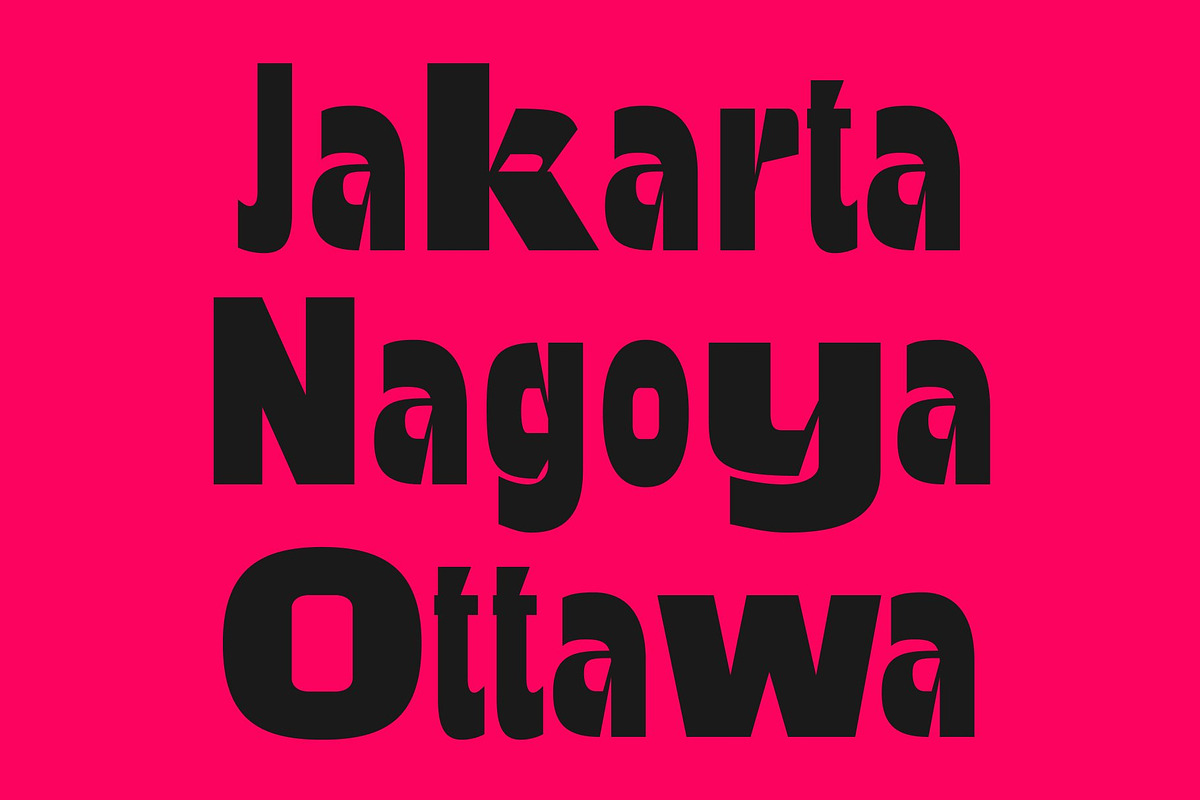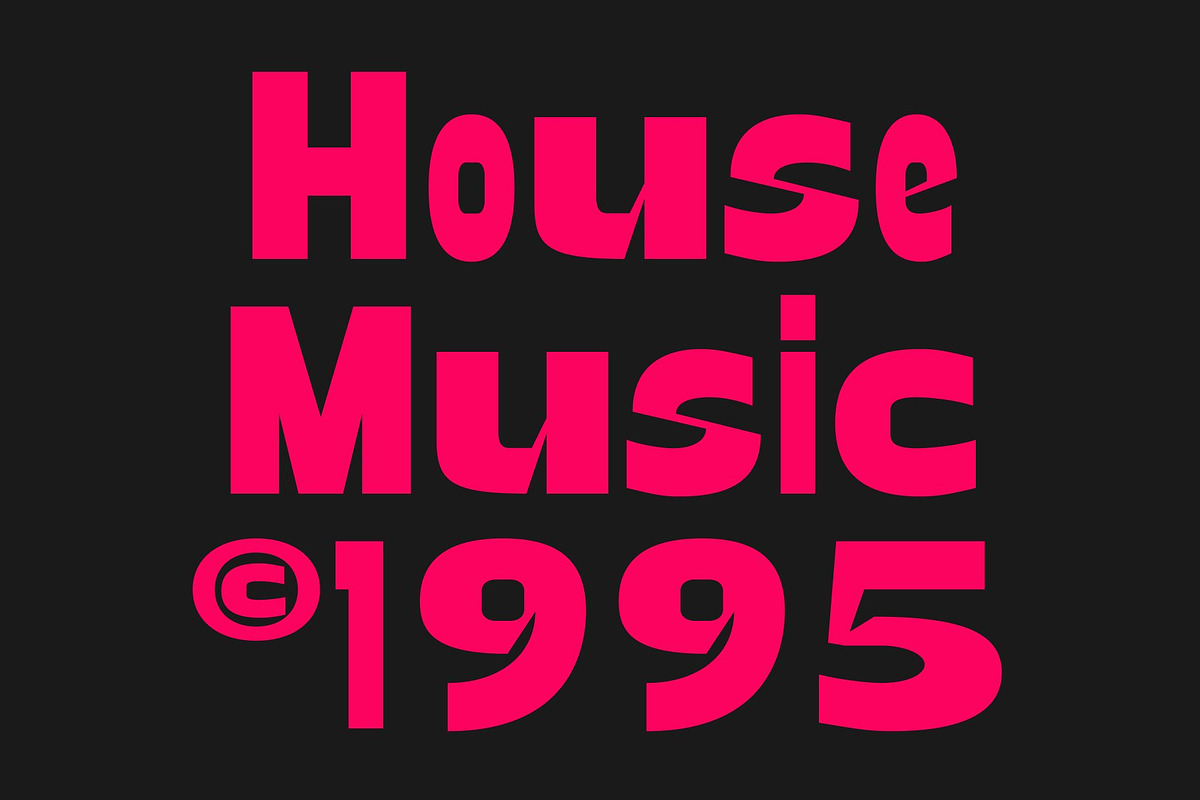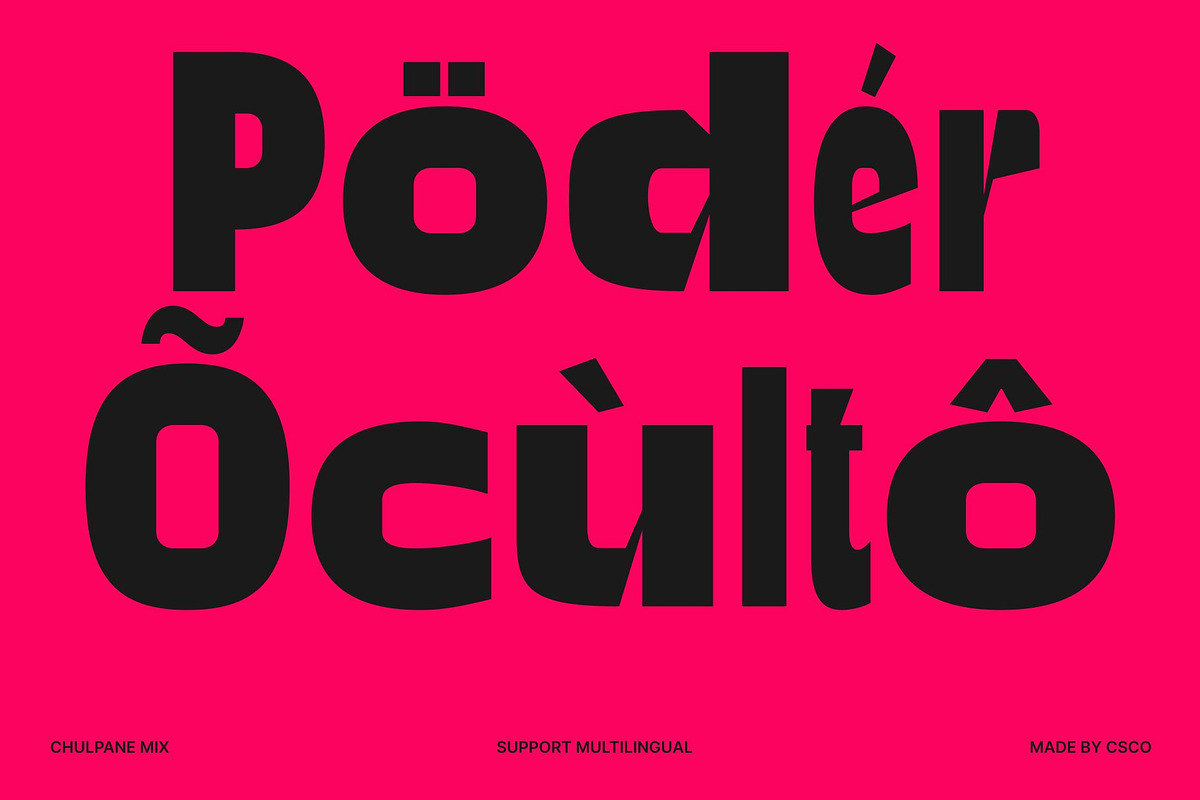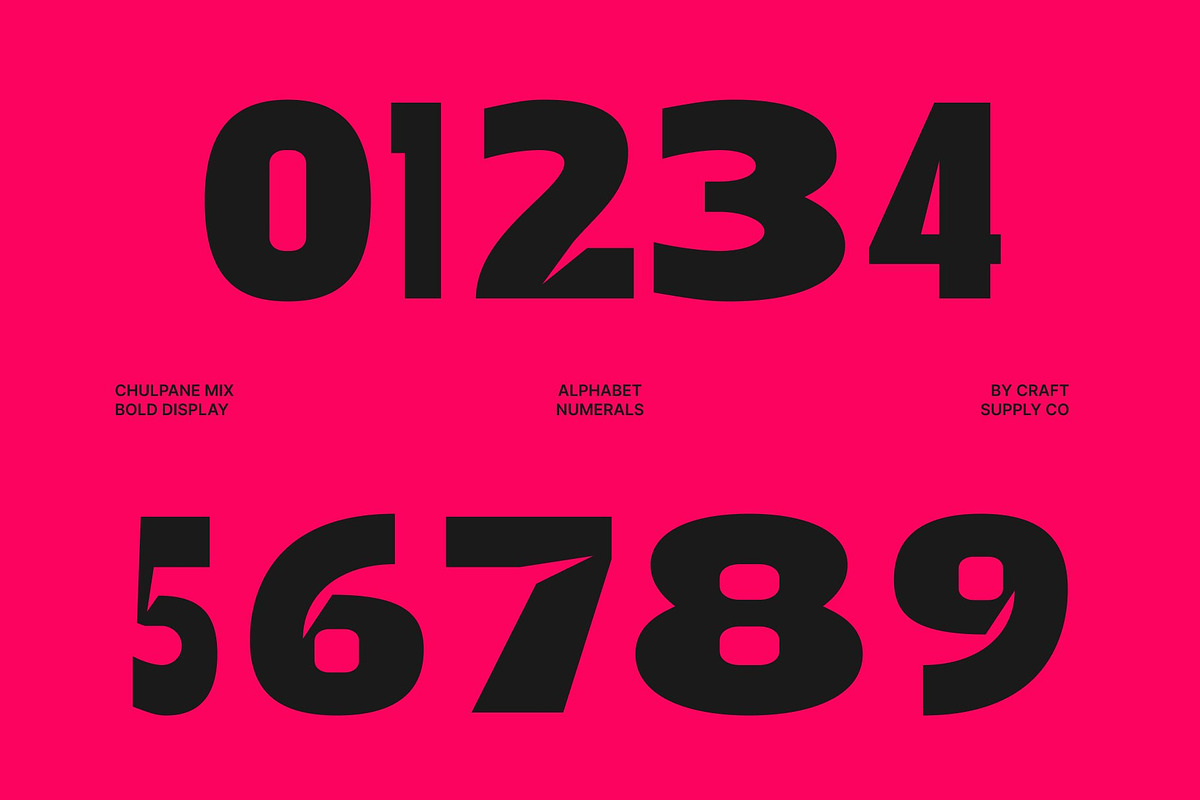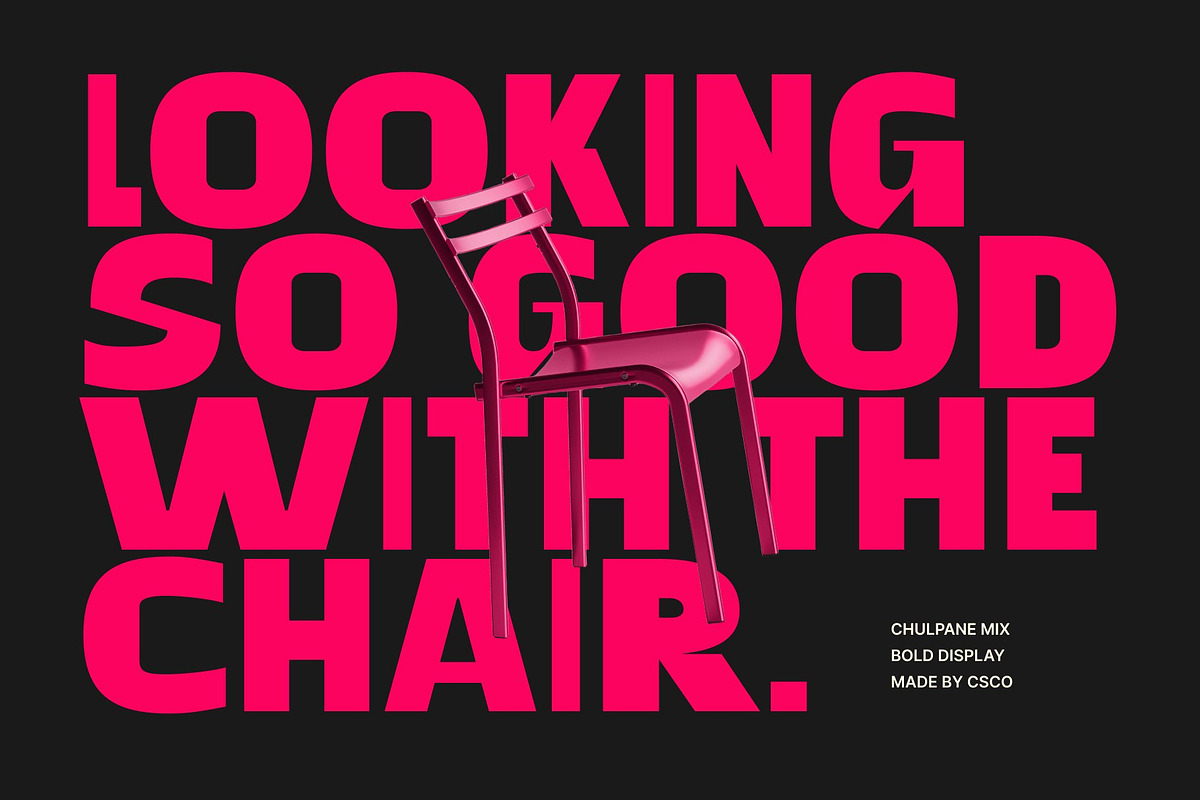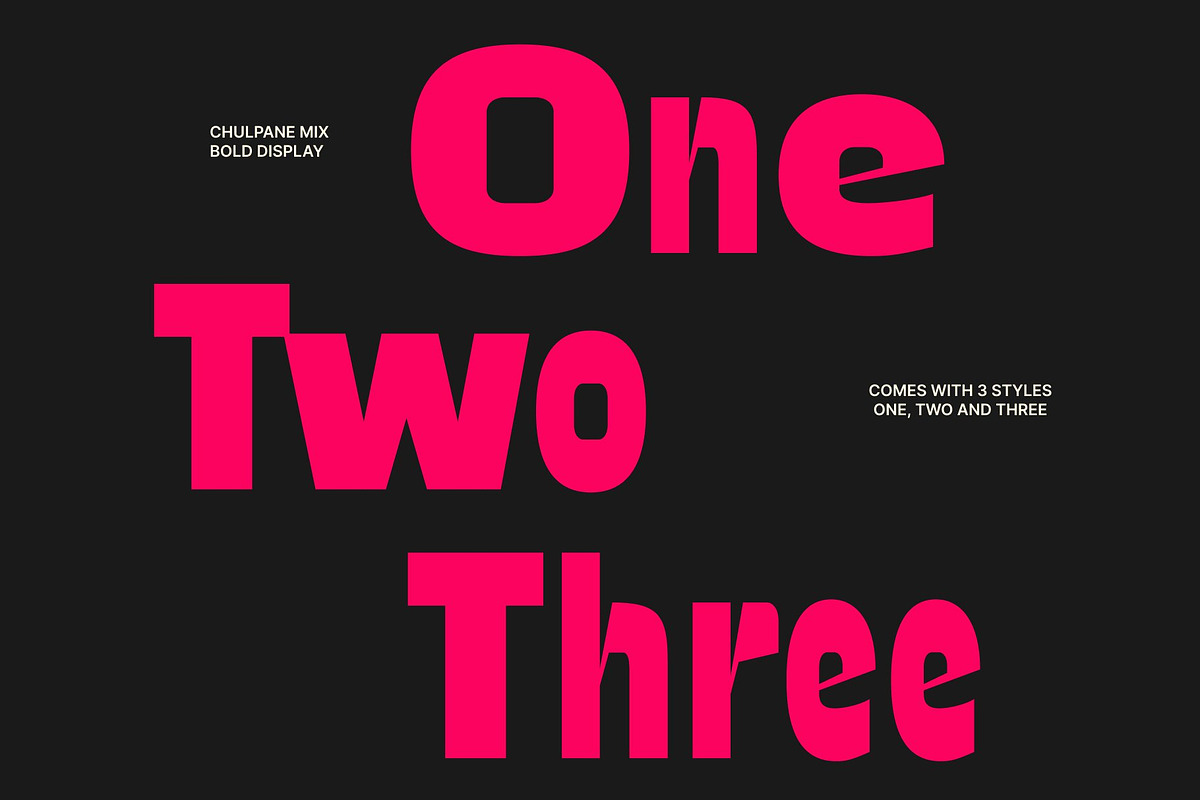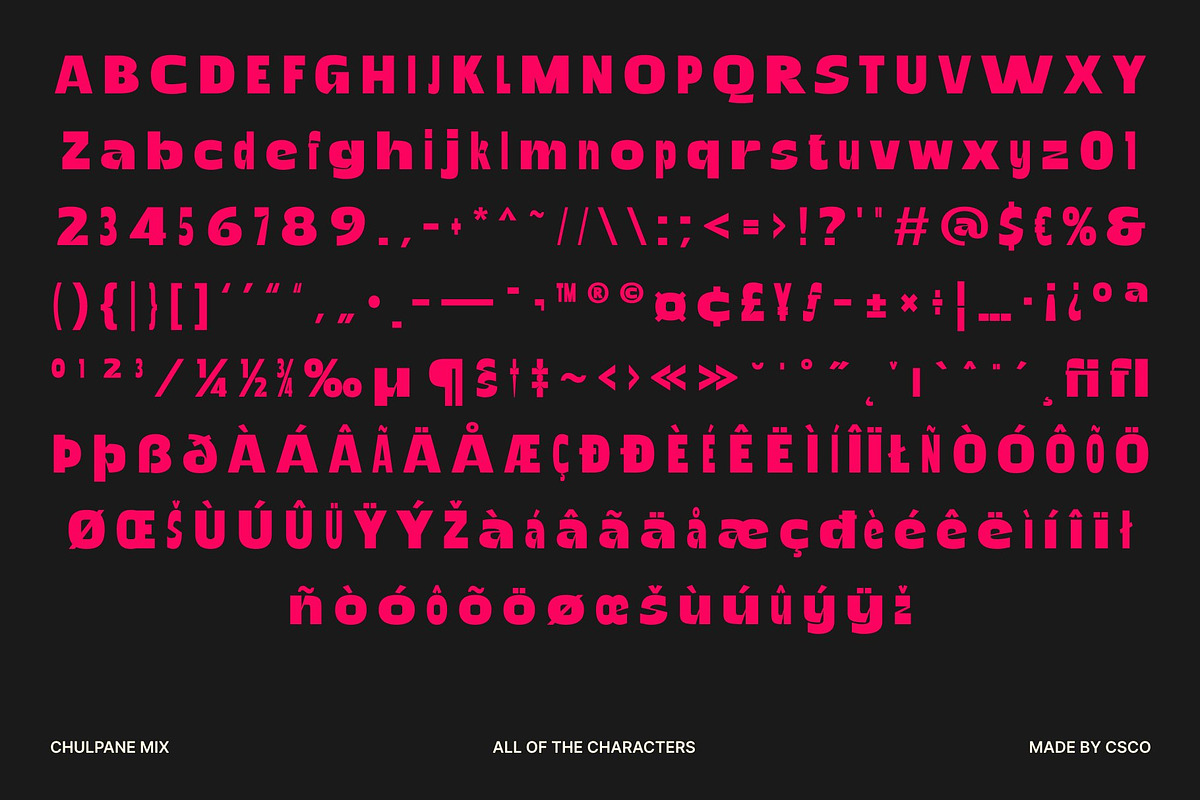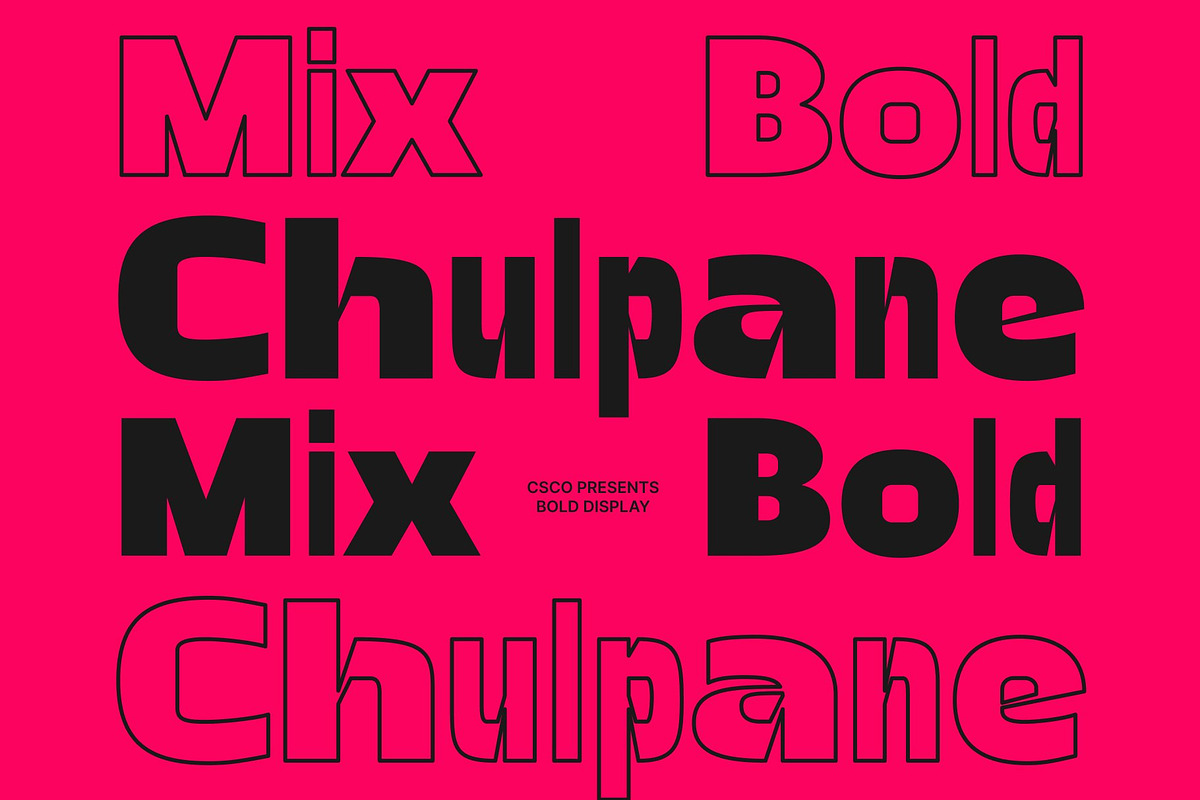
Chulpane Mix
Chulpane Mix – Bold Funky Sans Serif: Playful Energy with Strong Visual Impact
Bold Sans Serif with Mixed Style Character This is a bold sans serif font designed to combine strength, clarity, and playful creativity in one expressive typeface. Built with robust shapes and a confident structure, this font introduces a distinctive mixed-style concept that adds rhythm, contrast, and personality to every composition. It transforms bold typography into a lively visual statement that feels modern, energetic, and memorable.
A Dynamic Blend of Bold and Regular Letterforms The unique appeal of this font comes from its creative fusion of bold and regular characters. This mixed-weight approach creates visual movement and a dynamic typographic flow that instantly captures attention. The contrast between strong strokes and balanced forms gives the font a funky and artistic personality while maintaining harmony and readability across layouts.
Creative Shapes with Fun Contemporary Character This font embraces playful design elements that bring warmth and individuality into modern typography. Its bold construction communicates confidence and impact, while the funky details introduce a cheerful and expressive atmosphere. This balance makes the font suitable for projects that aim to feel unique, creative, and visually engaging.
Perfect for Posters, Branding, and Eye-Catching Displays From posters and branding to digital graphics and promotional materials, this font adapts effortlessly across a wide range of design applications. Its bold presence ensures headlines stand out instantly, while its readability keeps messages clear in both print and digital formats.
Chulpane Mix One
Chulpane Mix Two
Chulpane Mix Three